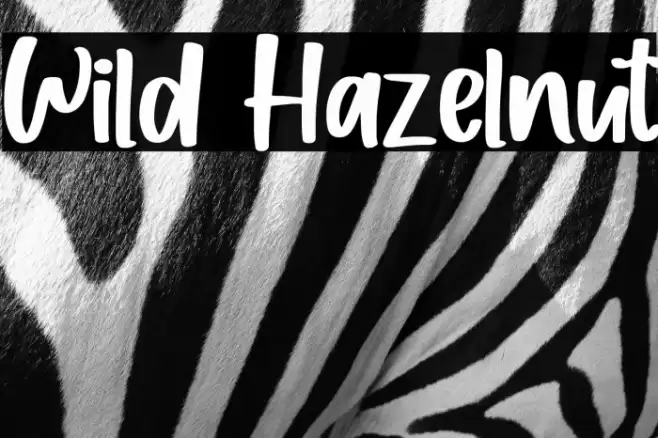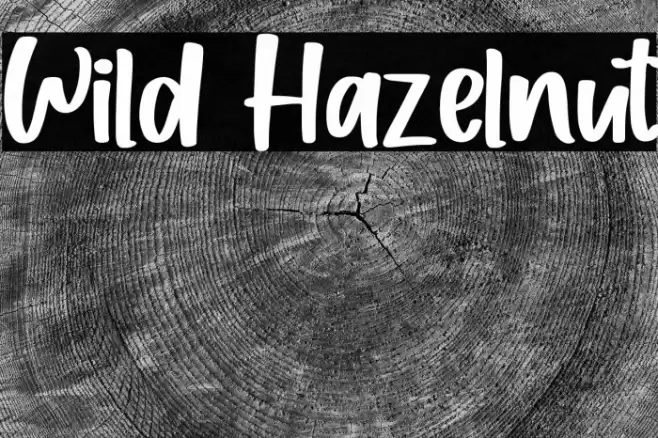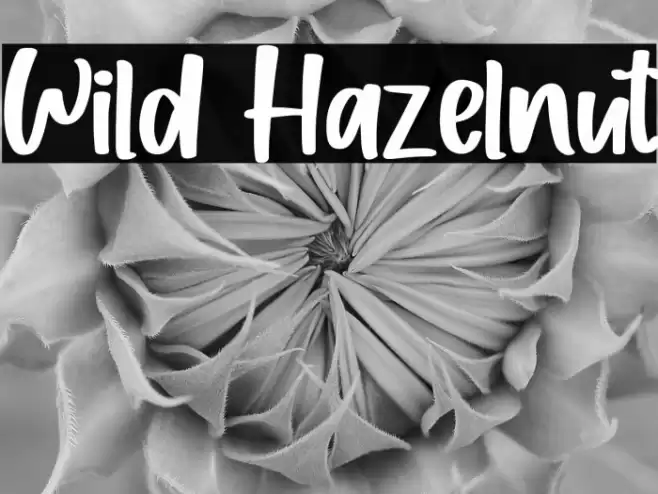
Wild Hazelnut Font
Wild Hazelnut Description
This playful and energetic font features a handwritten style with bold, rounded strokes that convey a sense of fun and creativity. The characters are slightly slanted, adding a dynamic flow to the text. The uppercase and lowercase letters maintain a consistent style, with the lowercase letters exhibiting a charming irregularity that enhances the font's casual appeal. The numbers and special characters are crafted with the same boldness and whimsy, making them stand out effectively. This font is perfect for projects that require a personal touch or a lively, informal vibe.
A bold, handwritten font with a playful and energetic style from Regular fonts.
- Font: Wild Hazelnut
- Proposed Projects: Ideal for greeting cards, playful branding, children's books, and social media graphics.
- Overall Style: Playful